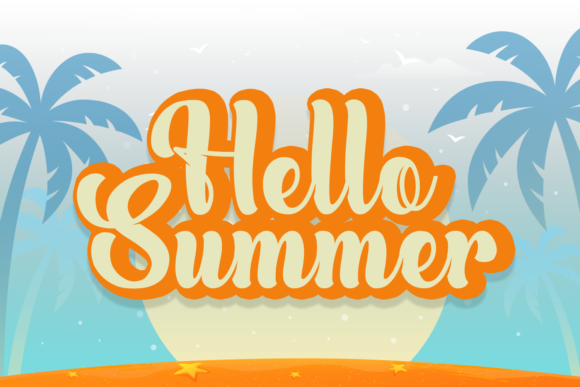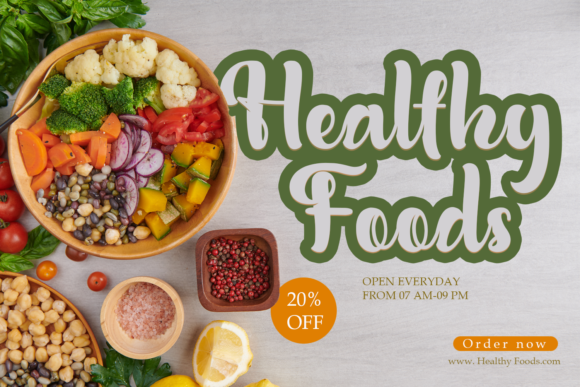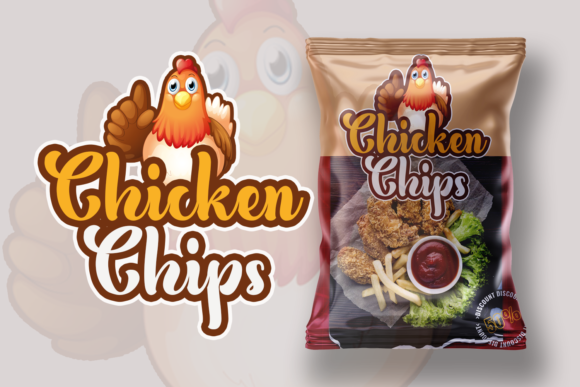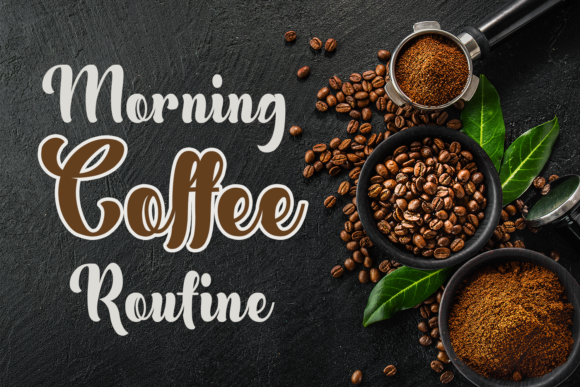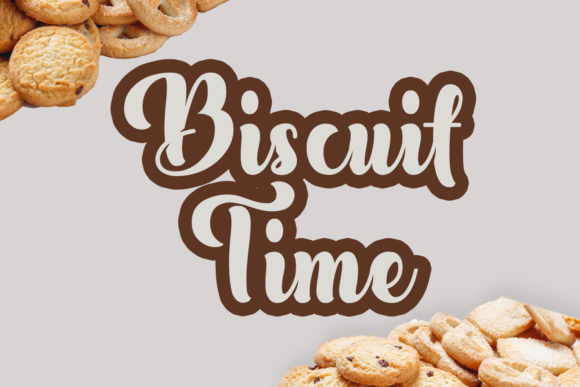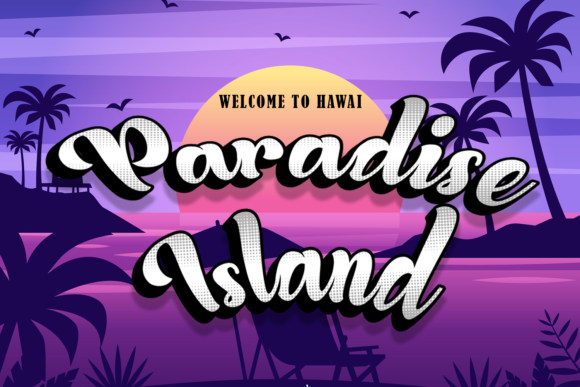
Introducing Badler Font: The Ultimate Retro Display Font for Creative Designs
Are you a designer or crafter looking for a font that adds a touch of playfulness and nostalgia to your creations? Look no further than Badler Font! This bold, thick lettered, retro styled display font is perfect for cartoon related designs, children games, and any project that requires a lovely touch.
What is Badler Font?
Badler Font is a unique and eye-catching font that is sure to make your designs stand out. With its bold and thick lettering, it’s perfect for creating attention-grabbing headlines, titles, and captions. The retro style of the font adds a touch of nostalgia and playfulness, making it ideal for designs that require a fun and youthful vibe.
Key Features of Badler Font
• Bold and Thick Lettering: Badler Font features bold and thick lettering that is sure to grab attention.
• Retro Style: The font has a retro style that adds a touch of nostalgia and playfulness to your designs.
• Display Font: Badler Font is a display font, making it perfect for headlines, titles, and captions.
• Easy to Read: Despite its bold and thick lettering, Badler Font is easy to read, making it perfect for designs that require a clear and concise message.
Use Cases for Badler Font
Badler Font is a versatile font that can be used in a variety of creative projects. Here are some use cases where Badler Font shines:
• Cartoon Related Designs: Badler Font is perfect for cartoon related designs, such as character names, titles, and captions.
• Children Games: The font’s playful and youthful vibe makes it ideal for children games, such as titles, buttons, and instructions.
• Posters and Flyers: Badler Font is great for creating attention-grabbing posters and flyers that require a bold and eye-catching headline.
• Social Media Graphics: The font’s retro style and bold lettering make it perfect for social media graphics, such as Instagram posts and Facebook headers.
Benefits of Using Badler Font
Using Badler Font in your designs offers several benefits, including:
• Unique and Eye-Catching: Badler Font is a unique and eye-catching font that is sure to make your designs stand out.
• Playful and Youthful Vibe: The font’s playful and youthful vibe adds a touch of nostalgia and fun to your designs.
• Easy to Read: Despite its bold and thick lettering, Badler Font is easy to read, making it perfect for designs that require a clear and concise message.
• Versatile: Badler Font is a versatile font that can be used in a variety of creative projects.
Tips for Using Badler Font
Here are some tips for using Badler Font in your designs:
• Use it for Headlines and Titles: Badler Font is perfect for headlines and titles, where its bold and thick lettering can make a big impact.
• Pair it with Other Fonts: Badler Font can be paired with other fonts to create a unique and interesting contrast.
• Experiment with Colors: The font’s bold and thick lettering makes it perfect for experimenting with different colors and gradients.
In conclusion, Badler Font is a bold, thick lettered, retro styled display font that is perfect for cartoon related designs, children games, and any project that requires a lovely touch. Its unique and eye-catching design, playful and youthful vibe, and ease of readability make it a great choice for designers and crafters. With its versatility and range of use cases, Badler Font is sure to become a favorite font in your collection.